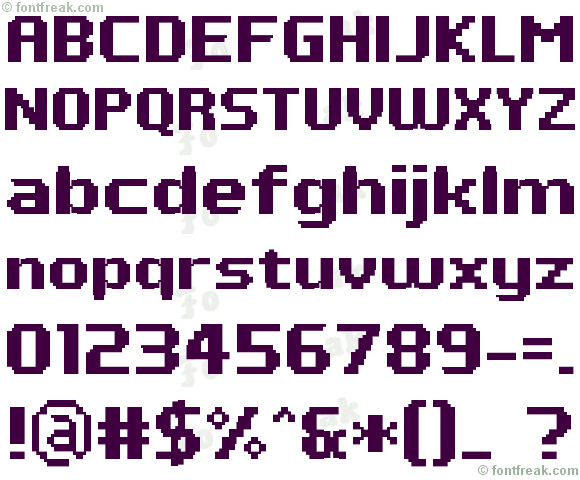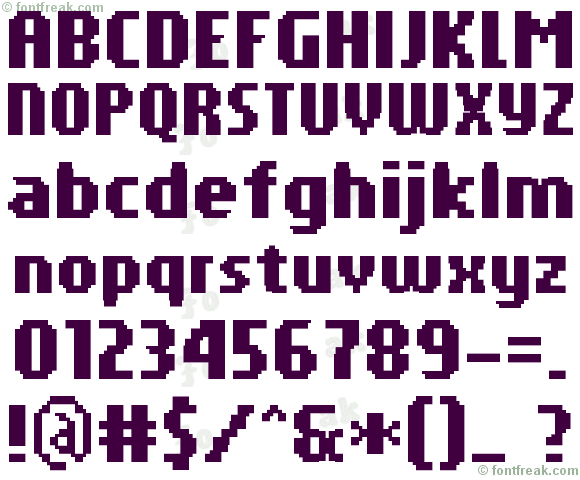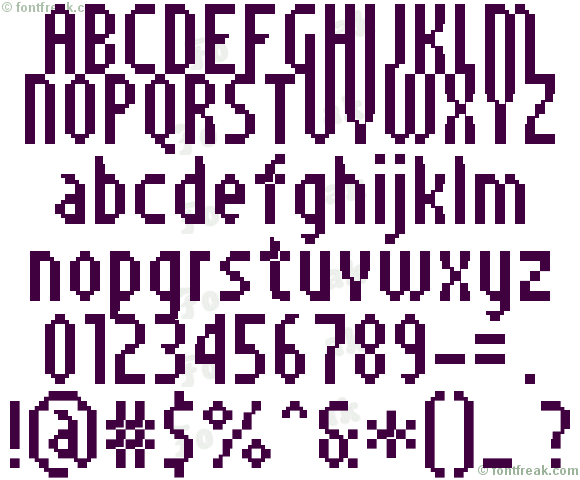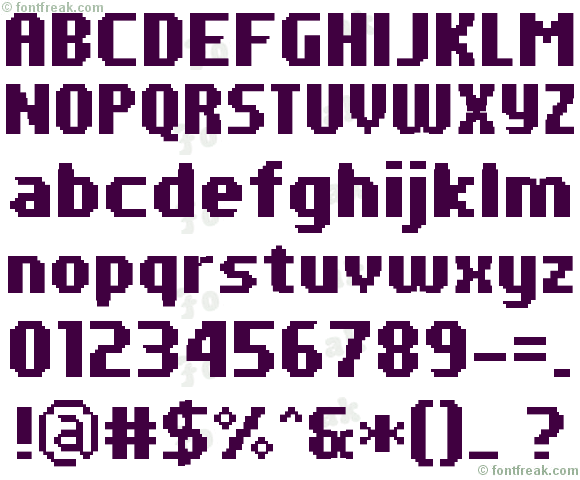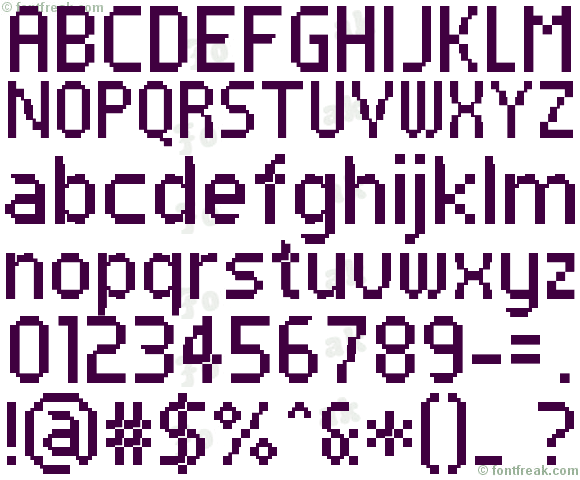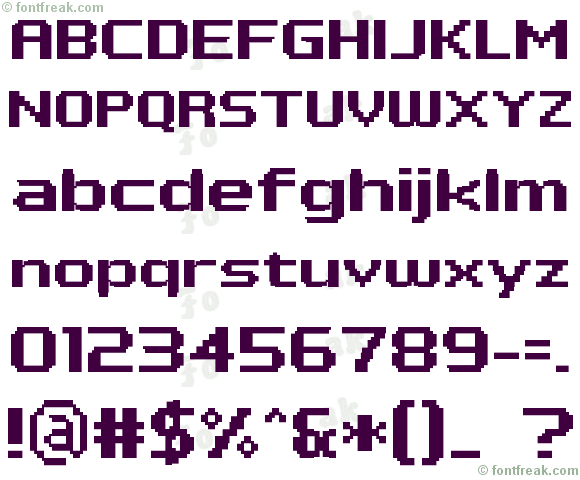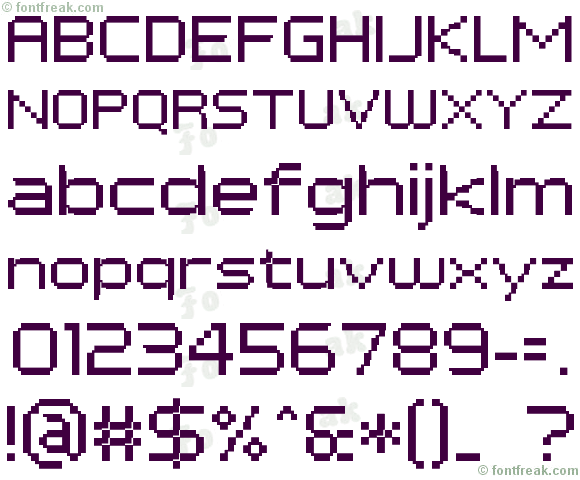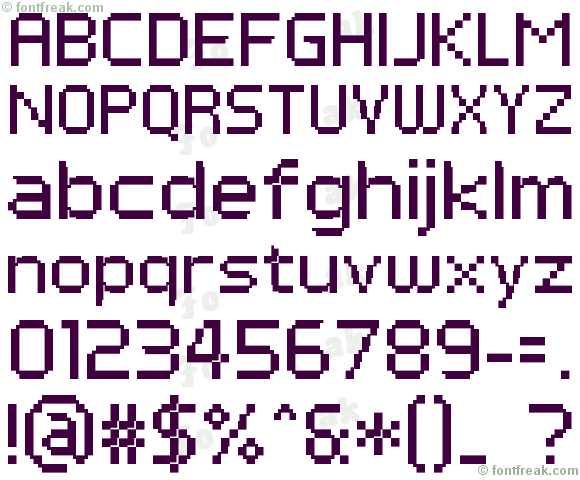
PF Tempesta Seven Compressed
PF Tempesta Seven Bold
PF Tempesta Seven Condensed
PF Tempesta Seven Condensed Bold
PF Tempesta Seven
PF Tempesta Seven Compressed Bold
PF Tempesta Seven Extended Bold
PF Tempesta Seven Extended
PF Tempesta Seven Compressed is a striking display font designed by Yusuke Kamiyamane, characterized by its bold and condensed form. This typeface falls under the category of decorative fonts, making it an excellent choice for projects that require a distinctive visual impact. The font features a unique stroke weight that conveys a sense of strength and presence, while its tight spacing enhances its legibility even at smaller sizes. The design incorporates slight angular elements, adding a modern twist to its retro-inspired aesthetic.
This font is particularly well-suited for a variety of creative applications. It shines in environments such as movie posters, where its boldness can capture attention and convey excitement. Restaurant menus can benefit from its modern yet inviting appearance, making dishes stand out. Additionally, the PF Tempesta Seven Compressed font is ideal for event flyers, providing a unique touch that grabs the audience's interest. Graphic designers will find it useful for branding projects, where a distinctive font can set a business apart from competitors.
What sets the PF Tempesta Seven Compressed apart is not just its bold and visually appealing design, but also its ability to adapt to different stylistic needs. Whether you’re creating promotional materials, digital graphics, or any other design elements, this font proves to be a valuable asset. For those interested in enhancing their design toolkit, the PF Tempesta Seven Compressed font free download is a must-try.